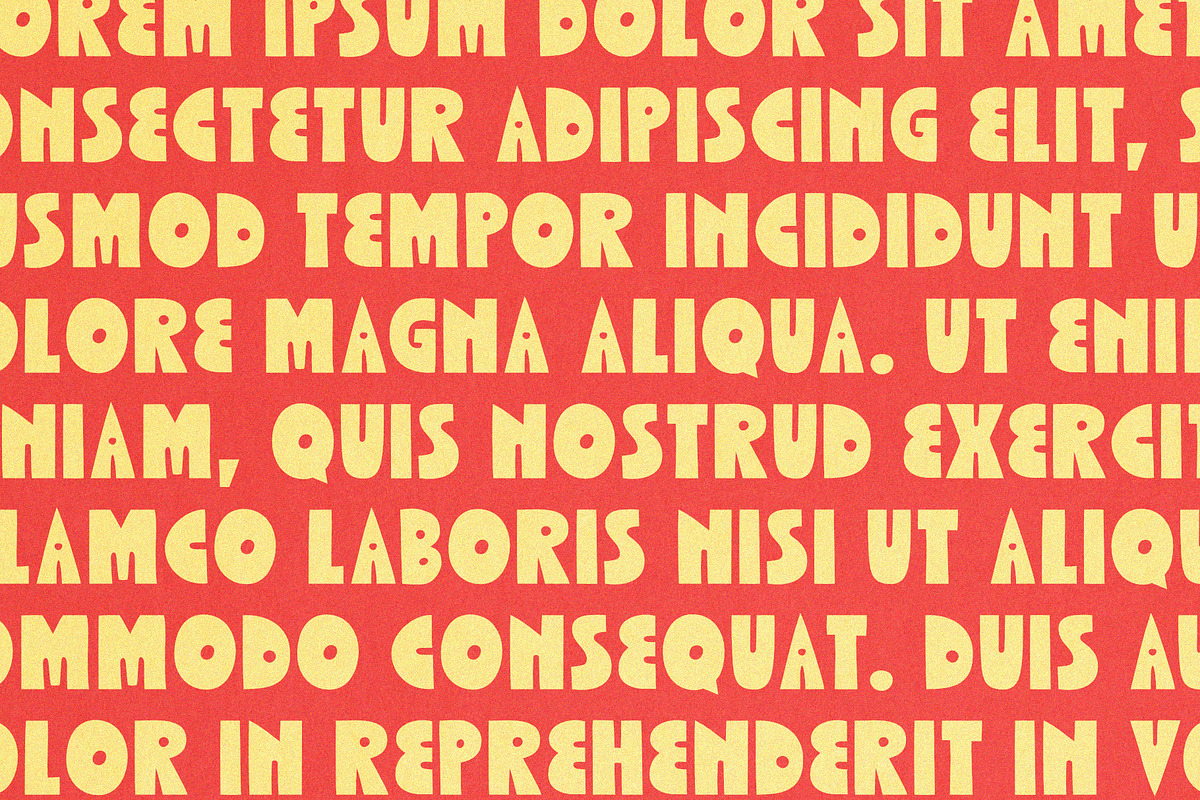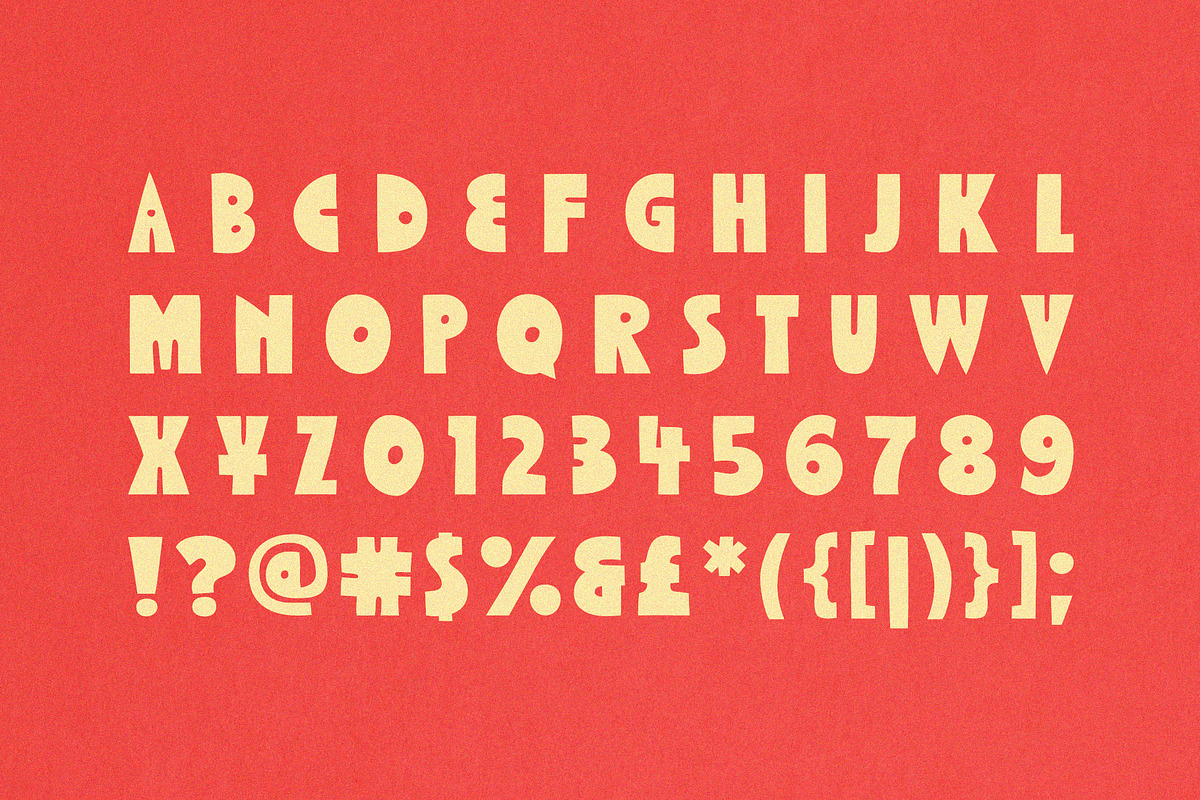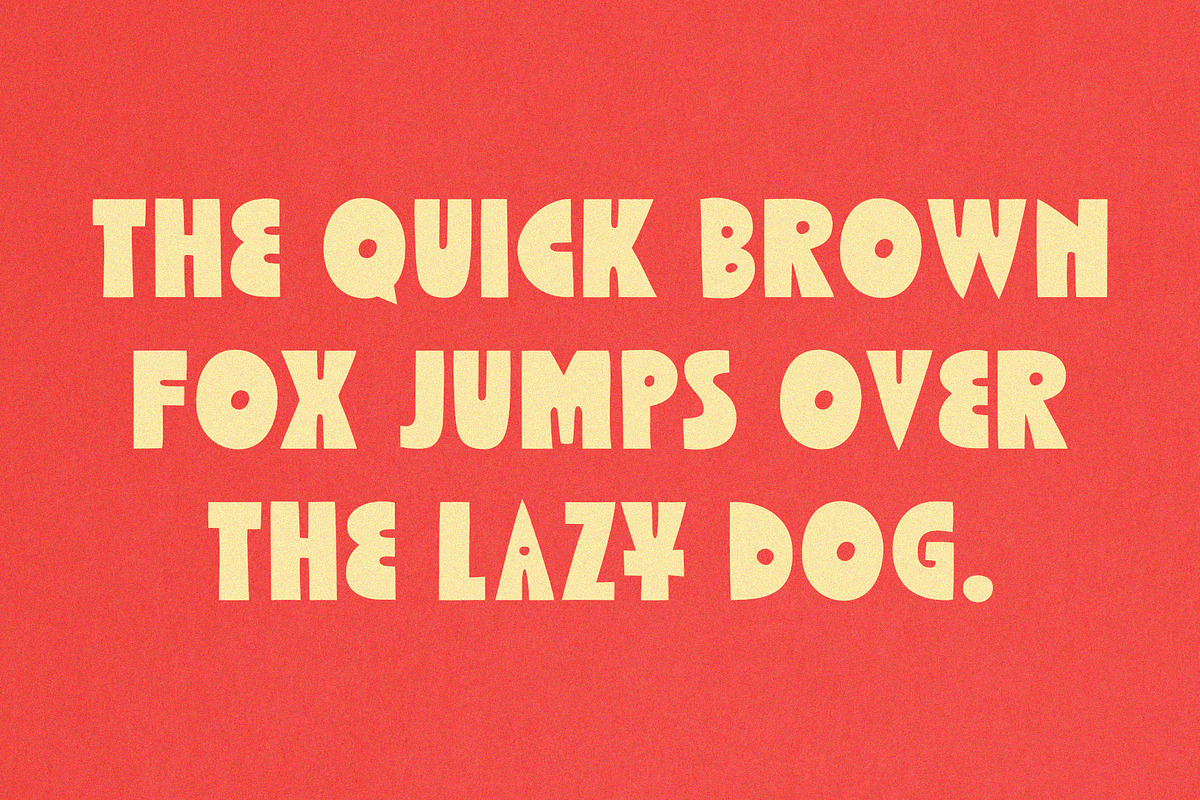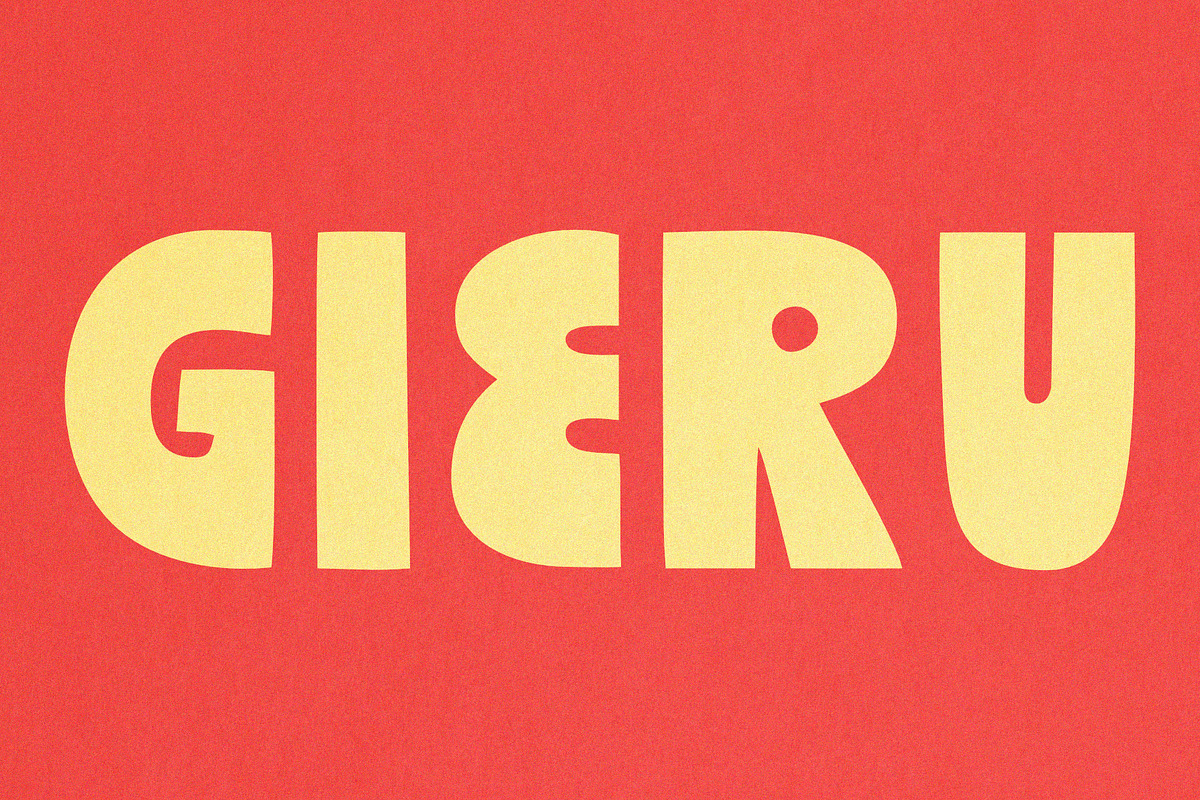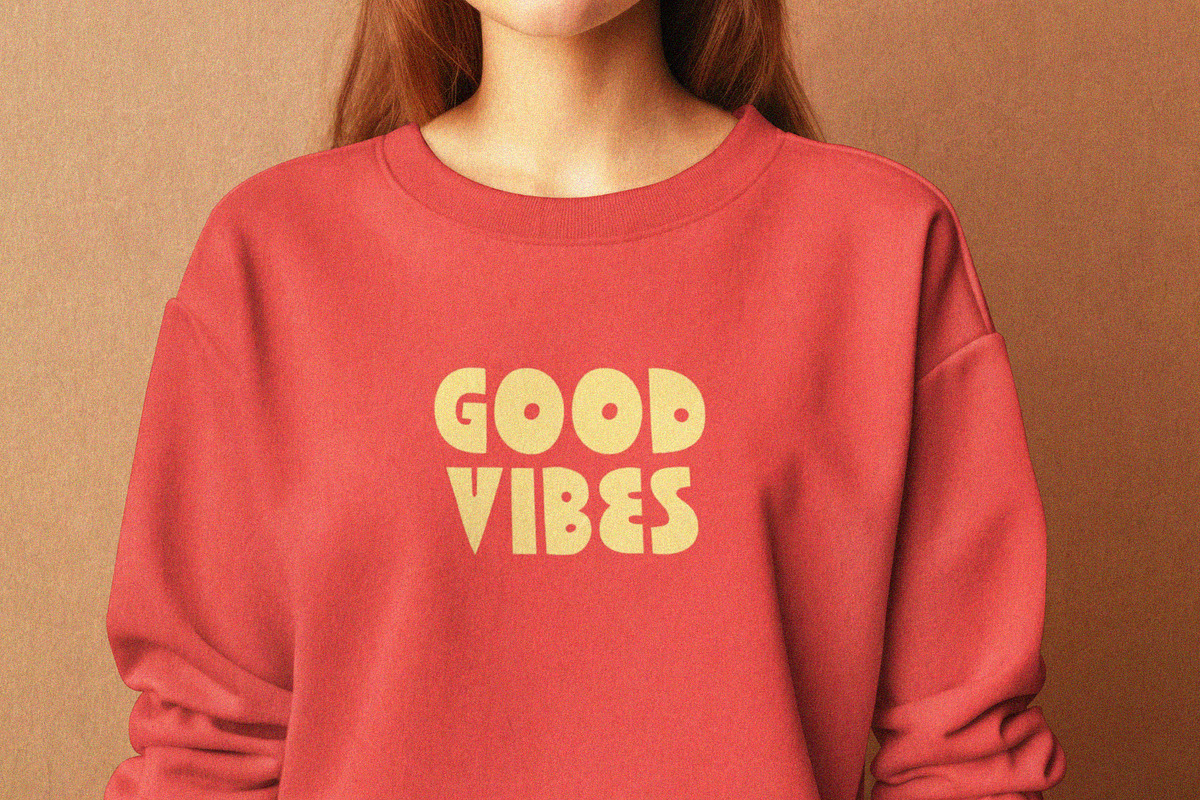
Gieru | Handmade Display Font
Gieru Display is a hand-drawn font. Perfect for graphic designs with an intriguing style. The font will work well in poster design, branding, logo design and clothing branding.